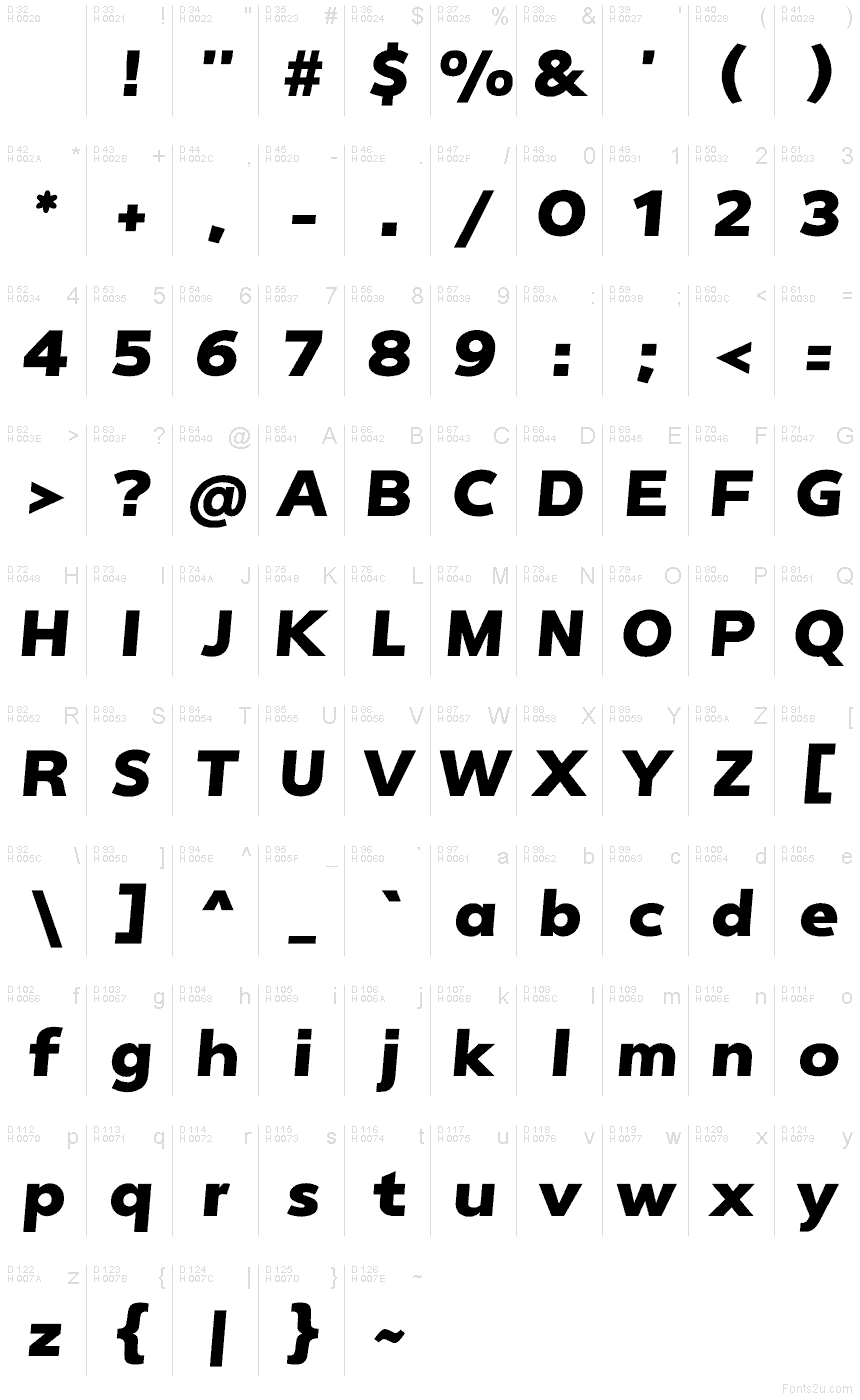
Plata Bold Italic
Plata Bold Italic font by 4RM Font is a sleek and modern sans serif display font that creatively embodies humanist and geometric elements. Its general style has authentic features enhanced by angled cuts, artistic legibility, and other small yet distinctive details. Plata is, unsurprisingly, all about straight angles with the consistent conservativeness expected from a bold italic sans serif.